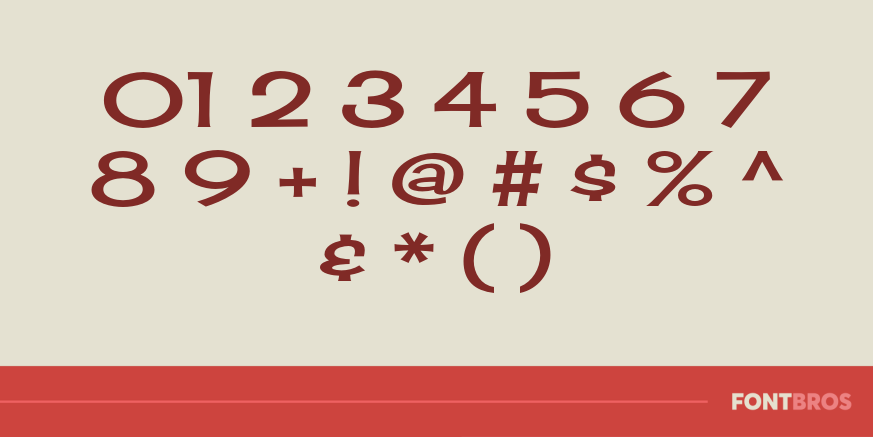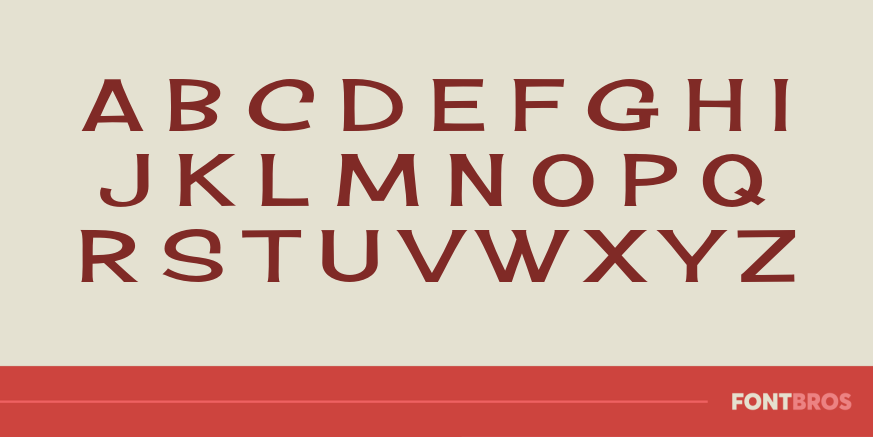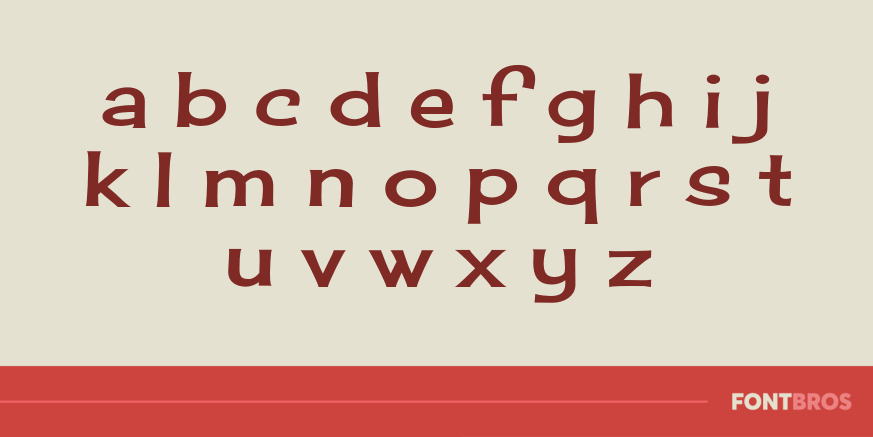
Cherry Cream Soda Pro
Font Family by Font Diner
Cruise in to your favorite soda fountain and ask the jerk behind the counter to pull you a sweet red cherry cream soda! This extra wide sans-serif will take you back to the world of the 1950s teenager complete with bubbly enthusiasm and an optimistic outlook!